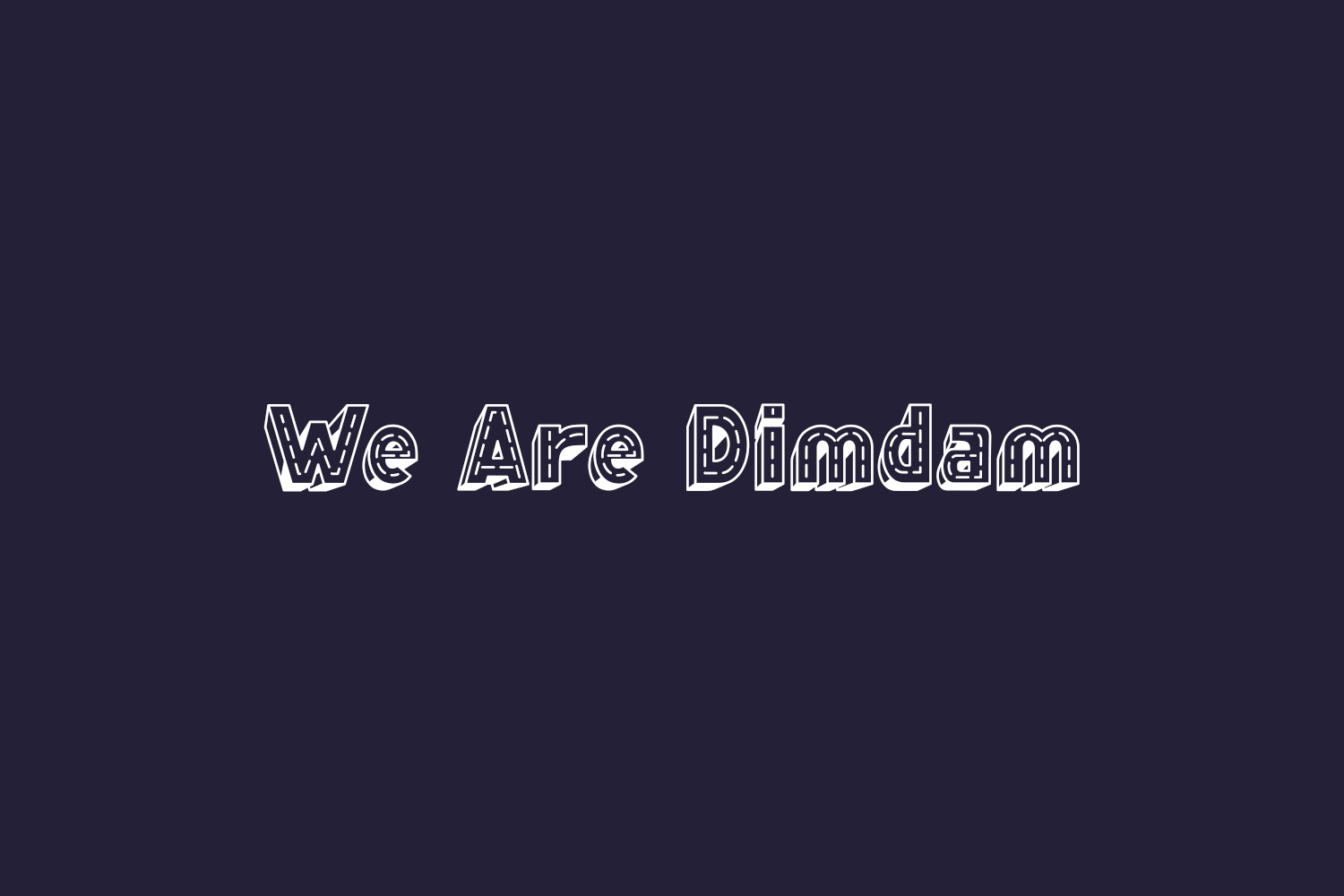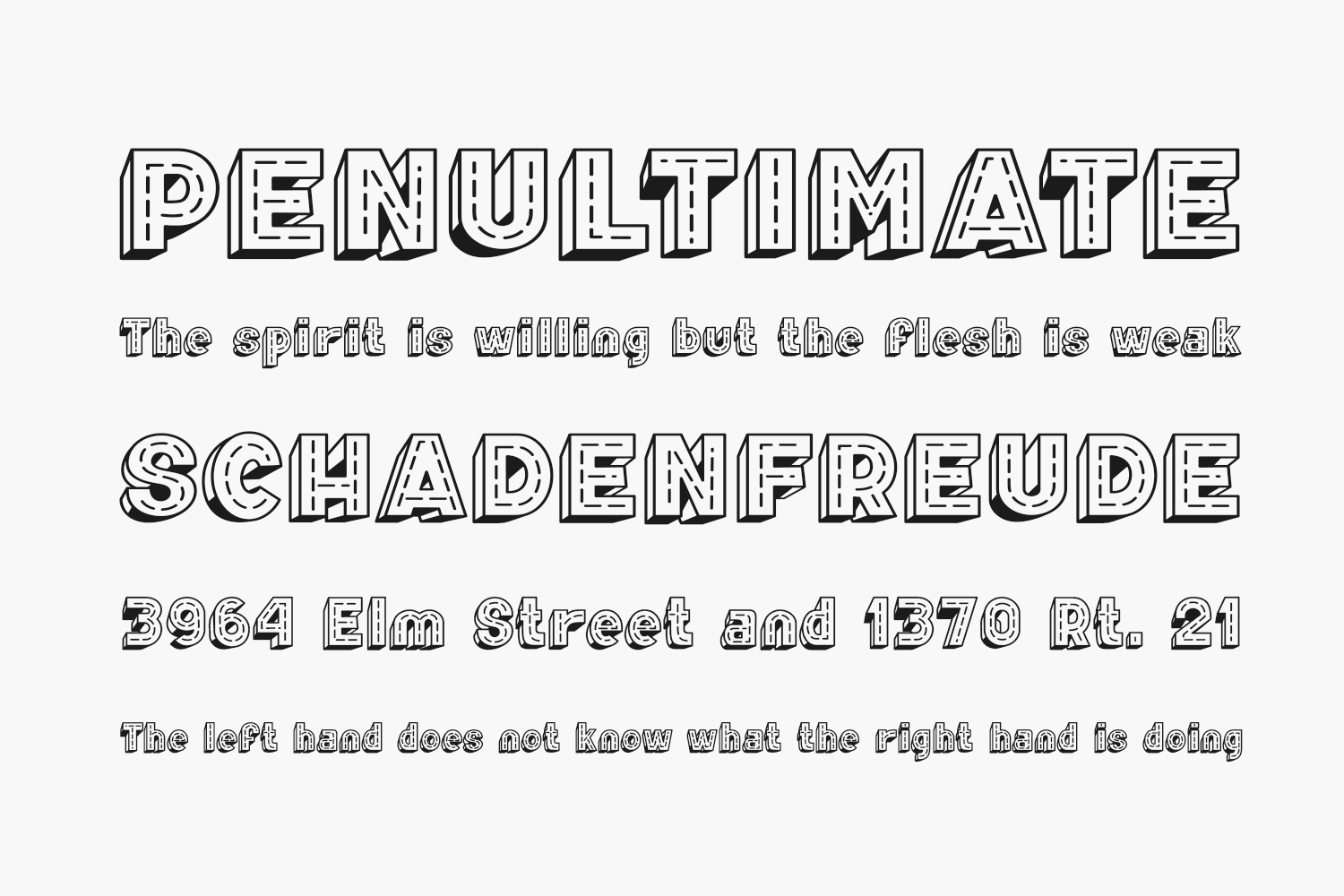
We Are Dimdam Free Font Family is an awesome 3D display font that will fit perfectly on each of your designs. Have fun with this beautiful font and explore its endless variations. We Are Dimdam Free Font Family was designed by Eknoji Studio and is free for personal use only. Please purchase the full version for commercial use.